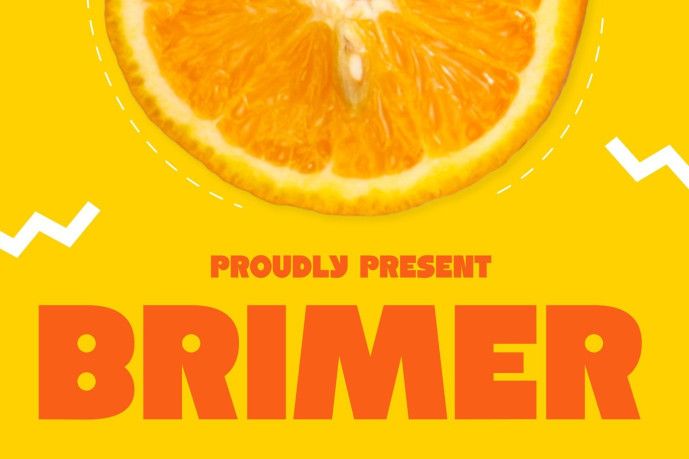
Brimer – Bold Font
BRIMER – Fresh Packaging Display Font
BRIMER is a fresh packaging display font crafted for food brands, beverage products, retail packaging, and promotional campaigns that need strong shelf presence and instant visibility. Featuring bold geometric letterforms, chunky proportions, low-contrast strokes, and smooth rounded corners, BRIMER delivers a vibrant and approachable personality that feels energetic and modern.
Inspired by contemporary packaging design and consumer-focused branding, BRIMER combines playful confidence with excellent readability. Its thick structure allows headlines to remain highly visible across product labels, marketing materials, and digital advertisements, helping brands communicate freshness, excitement, and clarity at first glance. From juice packaging and snack labels to social media promotions and retail campaigns, BRIMER creates a memorable visual identity that captures attention and strengthens brand recognition.
In fast-moving retail environments, consumers often make decisions within seconds. BRIMER helps brands stand out through bold typography that feels fresh, friendly, and instantly recognizable. For food startups, beverage companies, packaging designers, and branding agencies, BRIMER offers a reliable solution for creating impactful designs that leave a lasting impression.
Key Features : Fresh Geometric Style
Bold and chunky letterforms
Clean geometric construction
Rounded details for a friendly appearance
Optimized for Packaging
Designed to perform on product labels
Helps products gain stronger shelf visibility
Supports memorable brand presentation
High-Impact Readability
Clear and effective at large sizes
Ideal for headlines and promotional messaging
Maintains strong visual hierarchy